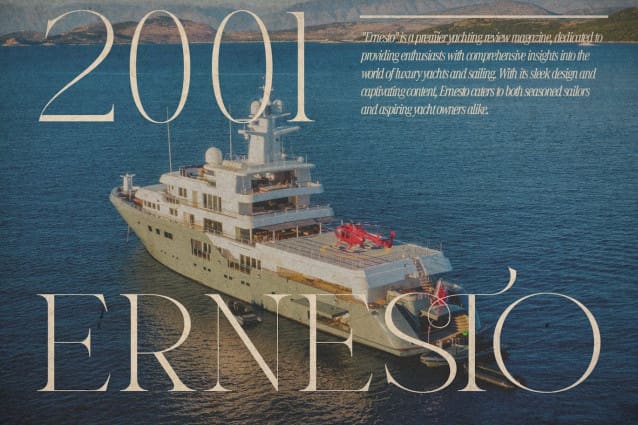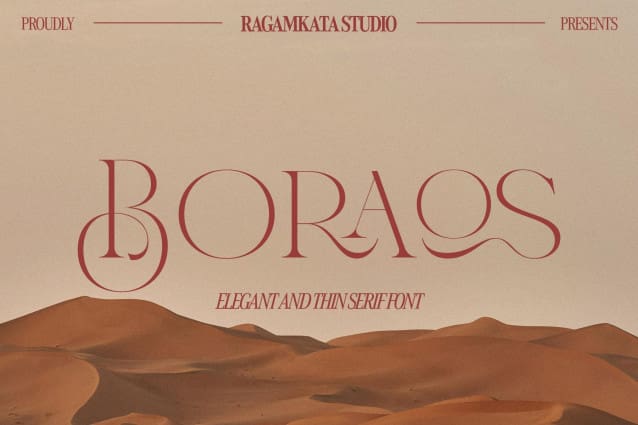
Boraos Font
Boraos Font is not just another serif font; it is the symbol of refined sophistication and timeless elegance. With its fine, fine strokes, Boraos embodies the essence of grace and style of modern typography.
Designed for designers looking to add a touch of class to their projects, Boraos offers the perfect balance between elegance and readability. Its slim serifs and graceful curves make it ideal for a wide range of applications, from branding materials to editorial layouts.